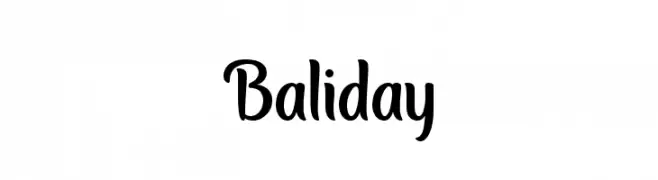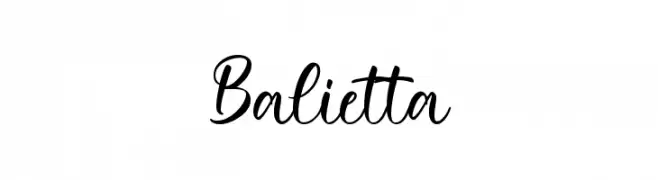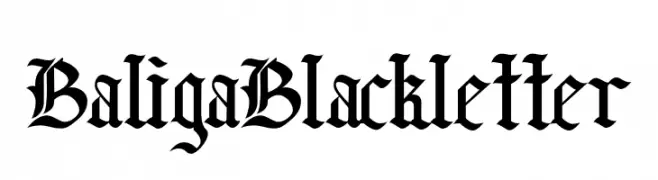
A playful, casual handwritten font with an organic flow and friendly appearance.
A bold, brushstroke font with a dynamic and textured appearance.
A playful, handwritten font with bold, rounded characters.
A playful, handwritten font with smooth curves and a casual style.
An elegant, flowing script font with a handwritten style.
A lively and flowing script font with elegant, cursive letterforms.
A modern, elegant handwritten font with a flowing style.
An ornate Blackletter font with intricate, bold letterforms.
A bold, ornate blackletter font with high contrast and intricate details.
A playful, bold font with rounded edges and a whimsical style.